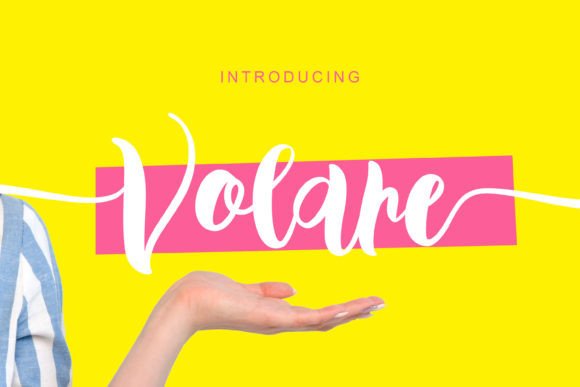
Introducing Volare Font - The Script Font That Will Ignite Your Creativity!
Embark on a typographic journey with Volare Font, a captivating script font that will transform your designs into breathtaking works of art. This font family exudes elegance and sophistication, making it the perfect choice for a wide range of creative projects.
Unlock the Endless Possibilities of Volare Font:
1. Wall Displays That Speak Volumes:
Create wall displays that command attention with Volare Font's graceful curves and sweeping lines. Let your walls tell a story of creativity and artistry.
2. Social Media Posts That Pop:
Make your social media posts stand out from the crowd with Volare Font's unique charm. Design logos that leave a lasting impression and capture the essence of your brand.
3. Advertisements That Enchant:
Craft advertisements that captivate audiences with Volare Font's enchanting style. Convey your message with flair and leave a lasting impact on potential customers.
4. Product Packaging That Sells:
Elevate your product packaging with Volare Font's elegant touch. Create designs that communicate your brand's values and make your products irresistible.
5. Product Designs That Inspire:
Design products that exude creativity and innovation with Volare Font's distinctive style. Turn your products into masterpieces that customers will cherish.
6. Labels That Inform and Intrigue:
Craft labels that inform and intrigue with Volare Font's captivating design. Add a touch of sophistication to your products and make them stand out on shelves.
7. Photography That Captivates:
Enhance your photography with Volare Font's artistic flair. Create watermarks that add a touch of elegance to your images and leave viewers in awe.
8. Invitations and Stationery That Impress:
Make your invitations and stationery unforgettable with Volare Font's timeless beauty. Design pieces that evoke a sense of occasion and leave guests feeling special.
9. Projects That Turn Ideas into Art:
Unlock your creative potential and turn your ideas into true works of art with Volare Font. From wall displays to product designs, let your imagination run wild and create projects that captivate and inspire.